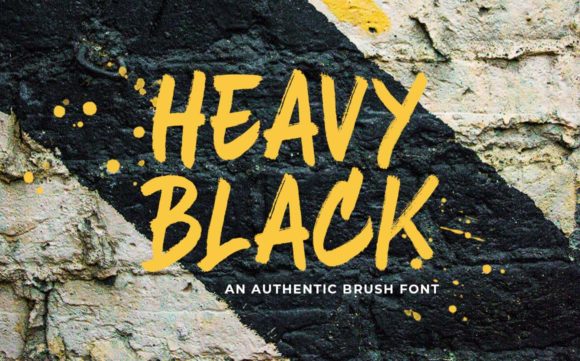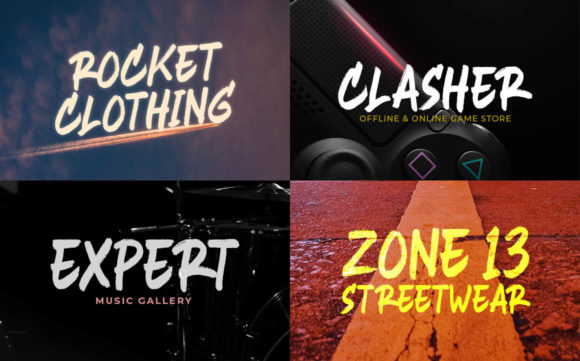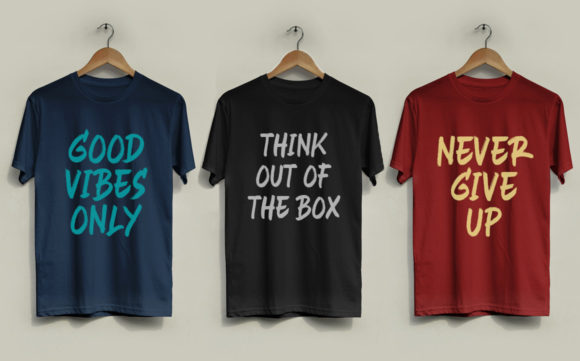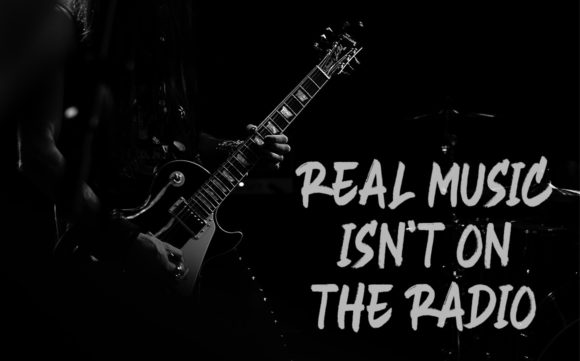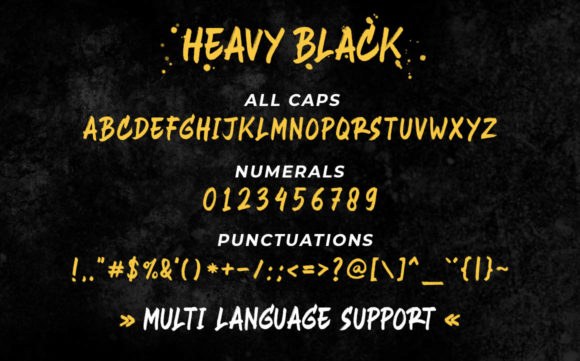
Heavy Black Font
About Heavy Black Font
Heavy Black is a bold, all caps script font, carefully handcrafted to become a true favorite. Its casual charm makes it appear wonderfully down-to-earth, readable and, ultimately, incredibly versatile. Heavy Black will look outstanding in any context, whether it’s being used on busy backgrounds or as a standalone headline!